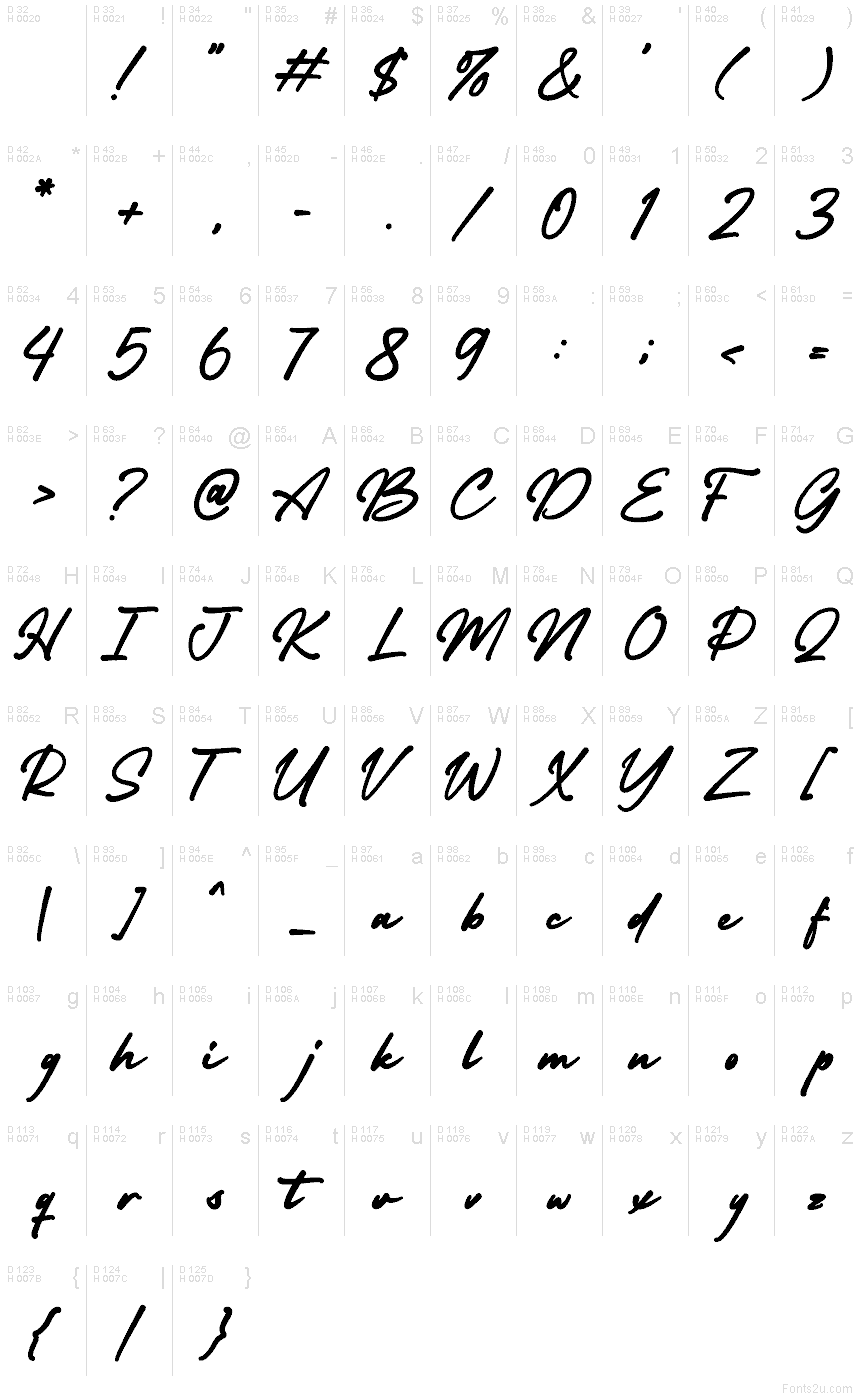
Bright Hills
Bright Hills font by RantautypeStudio is an elegant handwritten typeface inspired by nature and natural atmosphere. The font has a flowing script, signature-like appearance, modern aesthetic, and expressive character. It makes the font suitable for applications where a personal feel is desired.
The flawless curves of the free display font can be embedded in branding designs from logo to business card design, all forms of printed stationery items like envelopes and invitation cards.